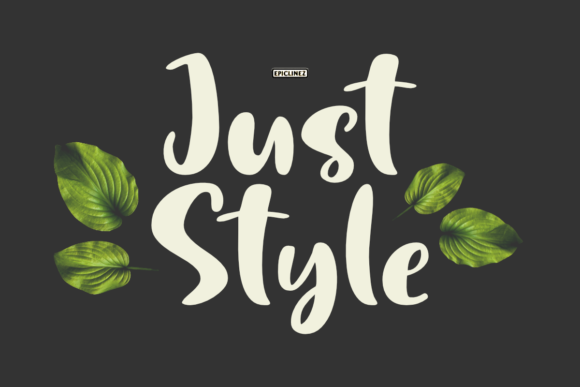
Introducing Just Style Font, the digital masterpiece that will elevate your creativity to unprecedented heights! This exquisite script font, crafted by the renowned Epiclinez, embodies the very essence of elegance and charm. Its captivating curves and whimsical strokes will enthrall your audience, leaving an unforgettable impression.
With its effortless versatility, Just Style Font adapts seamlessly to a myriad of design concepts. Whether you seek to create captivating app interfaces, enchanting logos, or alluring social media graphics, this font will be your trusted companion. Its enchanting allure will captivate your users, fostering an emotional connection that transcends mere words.
Just Style Font is more than just a font; it's an invitation to unleash your imagination and create extraordinary digital experiences. Its undeniable charm will empower you to express your individuality and leave a lasting mark on the hearts and minds of your audience. Embrace the exquisite artistry of Just Style Font and unlock the boundless possibilities it holds for your creative endeavors.